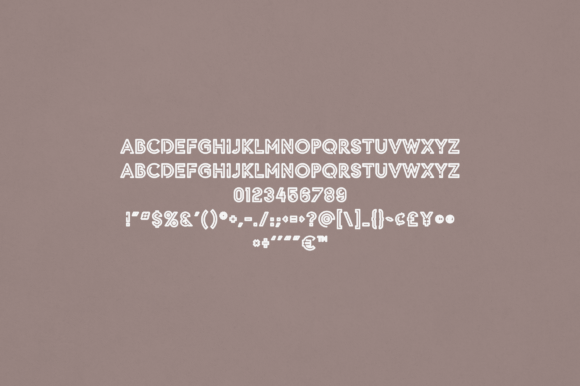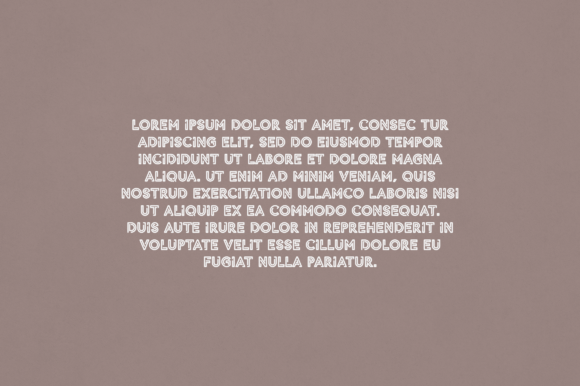
Introducing Amaryllis Font: Elevate Your Typography with Elegance and Versatility
In the world of typography, a font can make or break the visual appeal of a design. If you’re a designer, crafter, or simply someone who appreciates beautiful typography, you’re in luck. Amaryllis Font is here to revolutionize the way you approach your typography needs. This elegant and versatile font is designed to make your text truly unique, adding a touch of sophistication to any project.
What Makes Amaryllis Font So Special?
Amaryllis Font stands out from the crowd due to its exceptional elegance and versatility. Whether you’re working on a logo, branding materials, headlines, or plain text, this font is sure to enchant. Its sophisticated design ensures that it pairs well with a wide range of backgrounds and design elements, making it incredibly versatile.
One of the key benefits of Amaryllis Font is its adaptability. It’s perfect for a broad spectrum of design projects, including:
- Branding Projects: Establish your brand’s identity with a unique and memorable font that sets you apart from the competition.
- Home-ware Designs: Add a touch of elegance to your home-ware designs, making them more appealing to customers.
- Product Packaging: Elevate your product packaging with sophisticated typography that reflects the quality of your product.
- Magazine Headers: Create eye-catching magazine headers that draw readers in and enhance the overall aesthetic of your publication.
- Text Overlays: Use Amaryllis Font as a stylish text overlay on any background image, adding depth and interest to your visuals.
Why Choose Amaryllis Font?
There are countless fonts available, but Amaryllis Font offers several unique advantages:
- Unique Typography: With Amaryllis Font, you can create typography that is truly one-of-a-kind, setting your designs apart.
- Ease of Use: This font is incredibly easy to use, even for those who are new to design or typography.
- High Versatility: Its versatility means you can use it across a wide range of projects and applications.
- Elegant Design: The elegant design of Amaryllis Font ensures that your typography always looks sophisticated and professional.
Tips for Using Amaryllis Font Effectively
To get the most out of Amaryllis Font, consider the following tips:
- Experiment with Sizes: Don’t be afraid to experiment with different font sizes to create visual hierarchy and emphasis.
- Play with Colors: Try out different colors to see what works best with your design and the background.
- Mix and Match: Combine Amaryllis Font with other fonts to create a unique and visually appealing typography combination.
- Consider the Context: Always consider the context in which your typography will be viewed, ensuring it remains legible and impactful.
Amaryllis Font is a game-changer for anyone looking to elevate their typography. Its elegant design, versatility, and ease of use make it an invaluable tool for designers, crafters, and anyone in between. Whether you’re working on a branding project, home-ware design, product packaging, or simply want to add a stylish touch to your visuals, Amaryllis Font is the perfect choice. Give it a try and discover the difference it can make in your typography!
Elevate your designs. Enchant with elegance. Achieve typography excellence with Amaryllis Font.